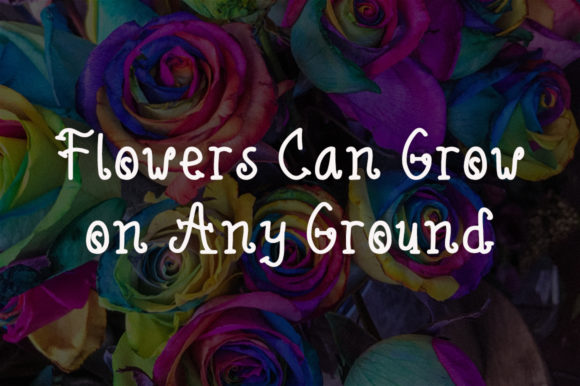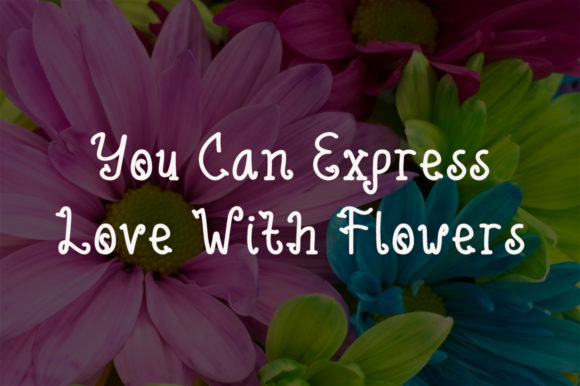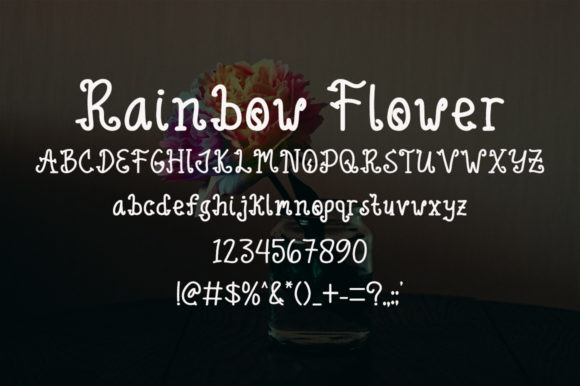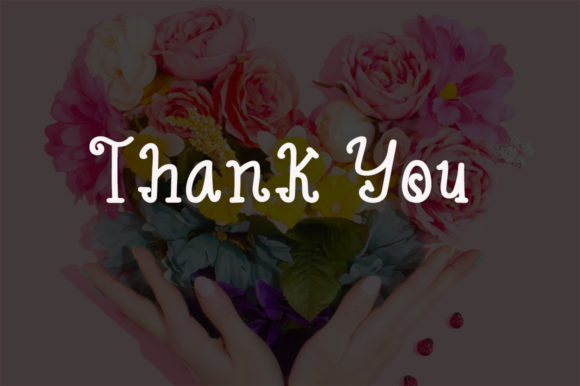
Rainbow Flower Font
About Rainbow Flower Font
Rainbow Flower: Embrace the Sweet Quirkiness of a Handwritten Gem
Introducing Rainbow Flower, a font that exudes sweetness and quirkiness in every playful stroke. Its handwritten style captures the essence of joy and creativity, making it an incredibly versatile choice for a wide range of designs. From delightful graphics to charming invitations, from whimsical posters to eye-catching social media content—Rainbow Flower will steal your heart and let you create spectacular designs that radiate with happiness.
The allure of Rainbow Flower lies in its unique and playful appearance. Each letter blooms like a colorful flower, infusing your projects with a sense of cheerfulness and imagination.
Designing with Rainbow Flower is a delightful adventure. Whether you’re crafting joyful party invitations or designing captivating posters, this font adds a touch of fun and quirkiness that invites smiles and excitement.
Expressing sentiments becomes a heartwarming experience with Rainbow Flower. From conveying warm wishes to sharing celebratory messages, this font adds a sense of joy and playfulness to your words.
Gorgeous designs come alive with Rainbow Flower’s versatile style. Whether you’re creating personalized greeting cards, crafting artistic prints, or designing lively social media posts, this font adds a touch of whimsy that draws attention and admiration.
For businesses seeking to stand out with a unique brand identity, Rainbow Flower is the answer. Its playful charm and versatility make it an excellent choice for creative businesses looking to express their vibrant personalities.
And when it comes to unleashing your creativity, Rainbow Flower won’t disappoint. Its joyful and quirky style allows it to complement a wide array of design concepts, from children’s themes to joyful celebrations.
In conclusion, Rainbow Flower is more than just a font; it’s a sweet and quirky gem that will make you fall in love with its charm. Embrace its playful elegance, and let it inspire your most delightful designs. Whether you’re celebrating special moments, spreading happiness through social media, or creating a vibrant brand presence, Rainbow Flower will be your ultimate partner in creativity. Let this font be the key to unlocking the full potential of your imagination, and watch as your designs bloom with the colorful happiness of Rainbow Flower.